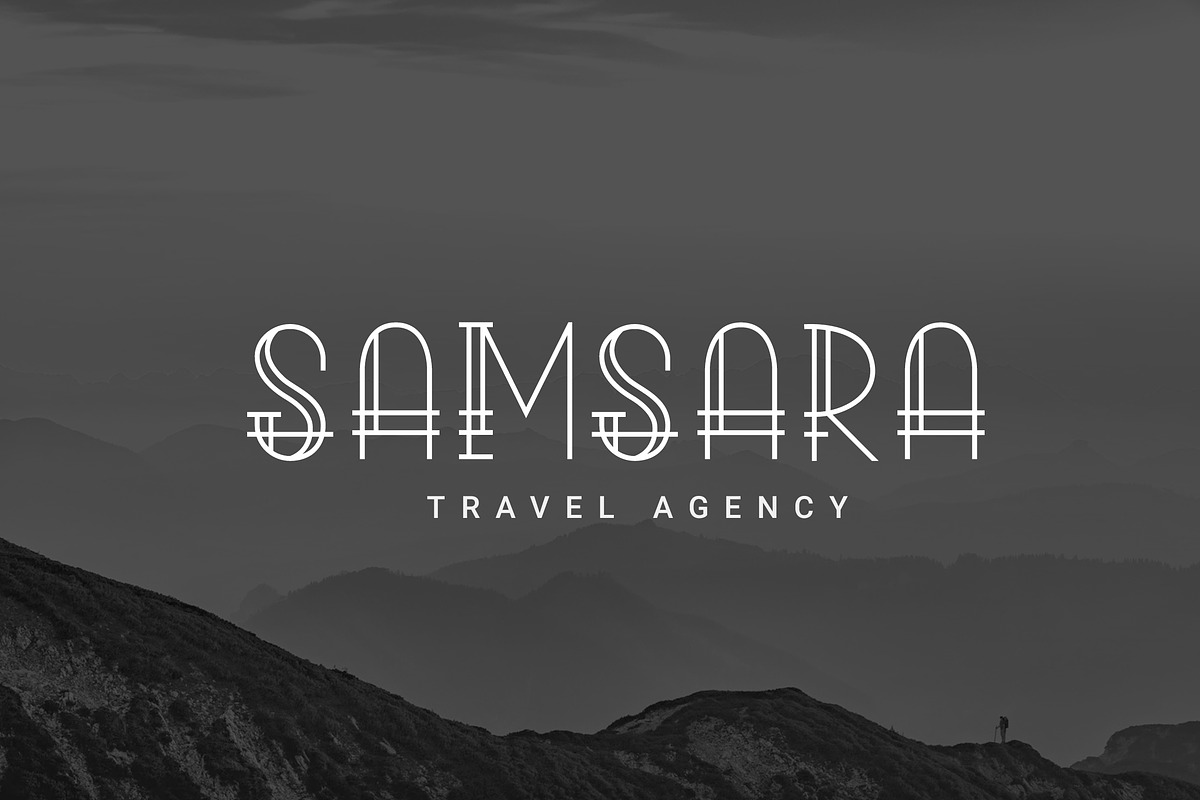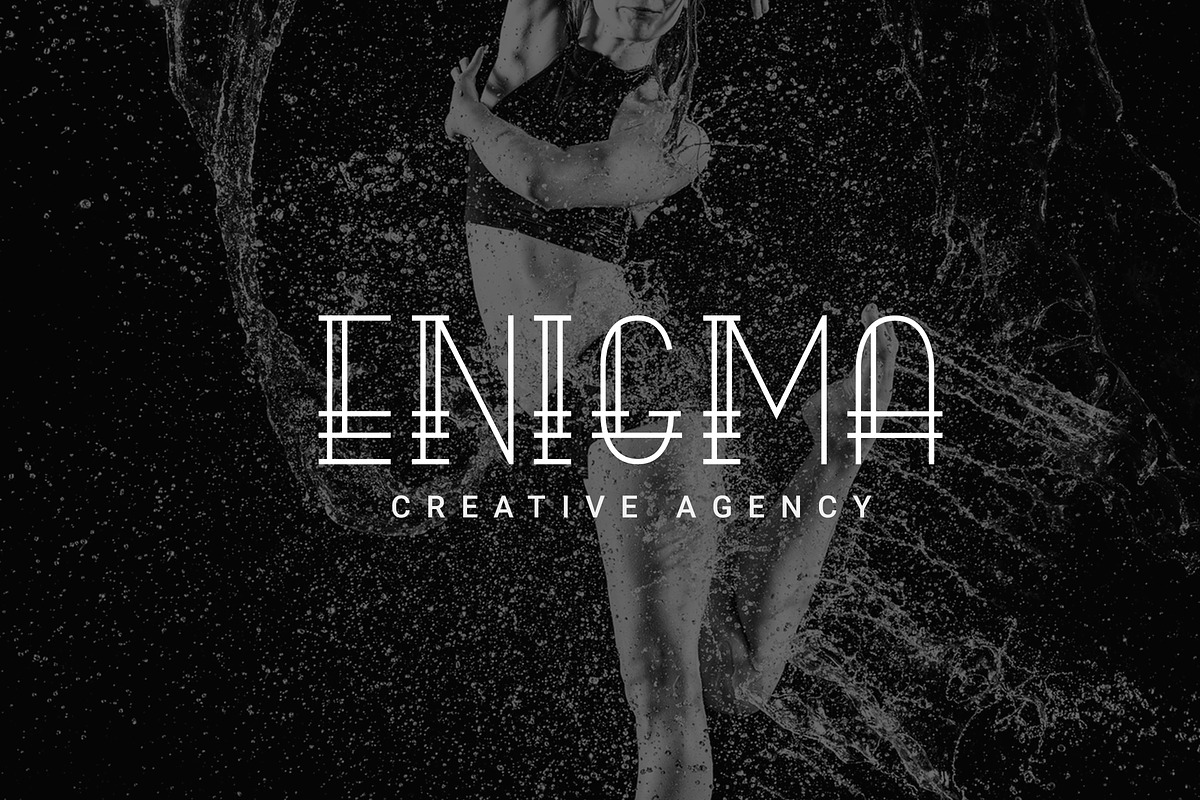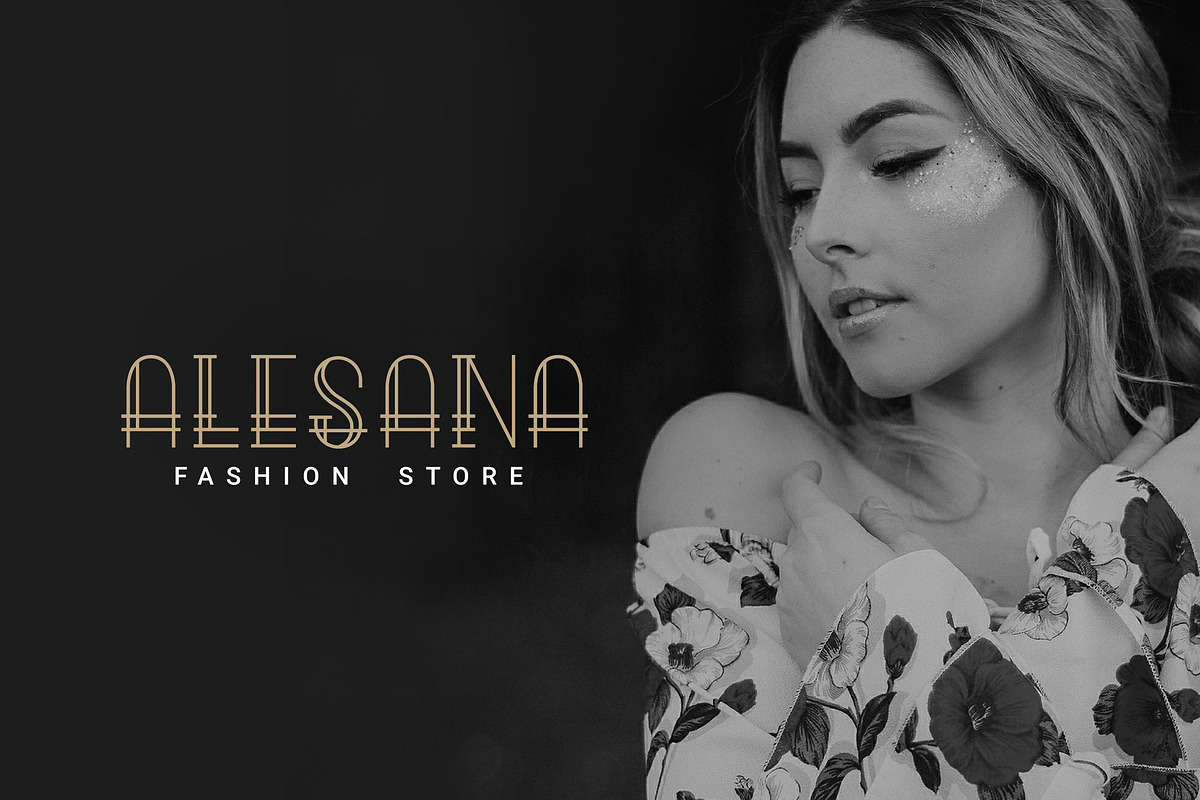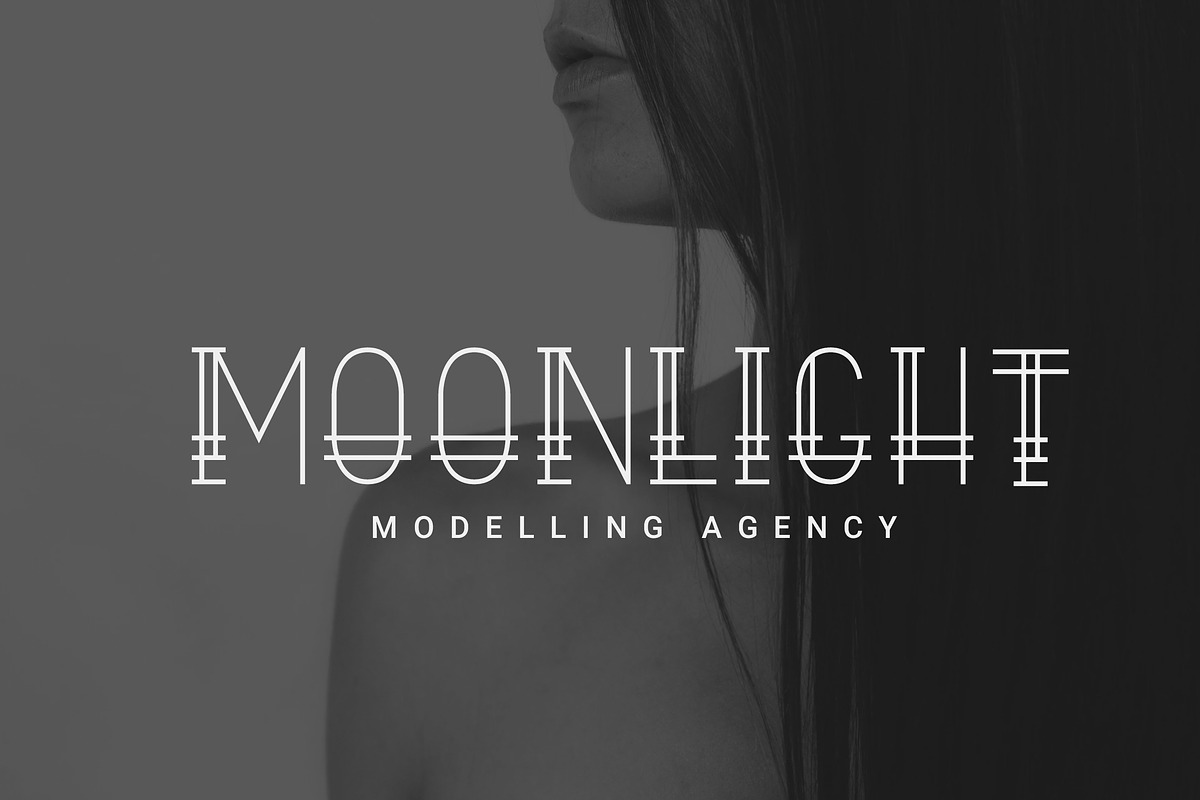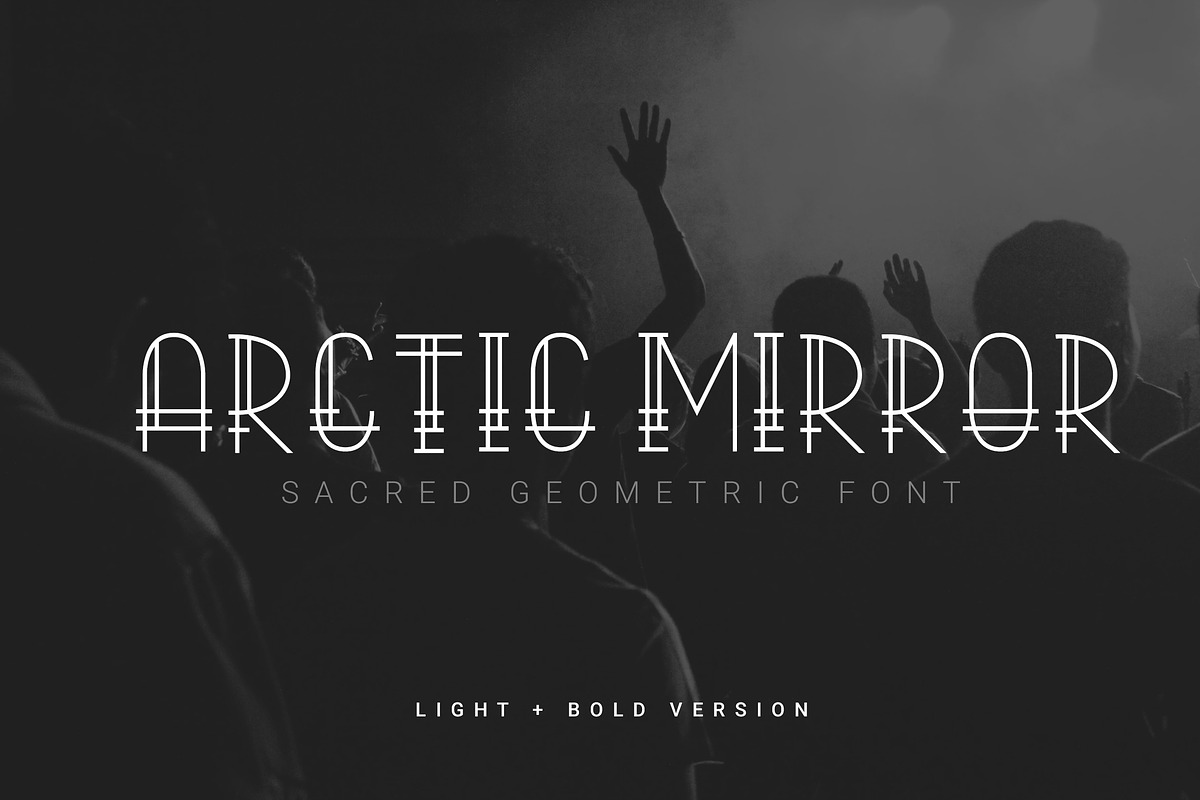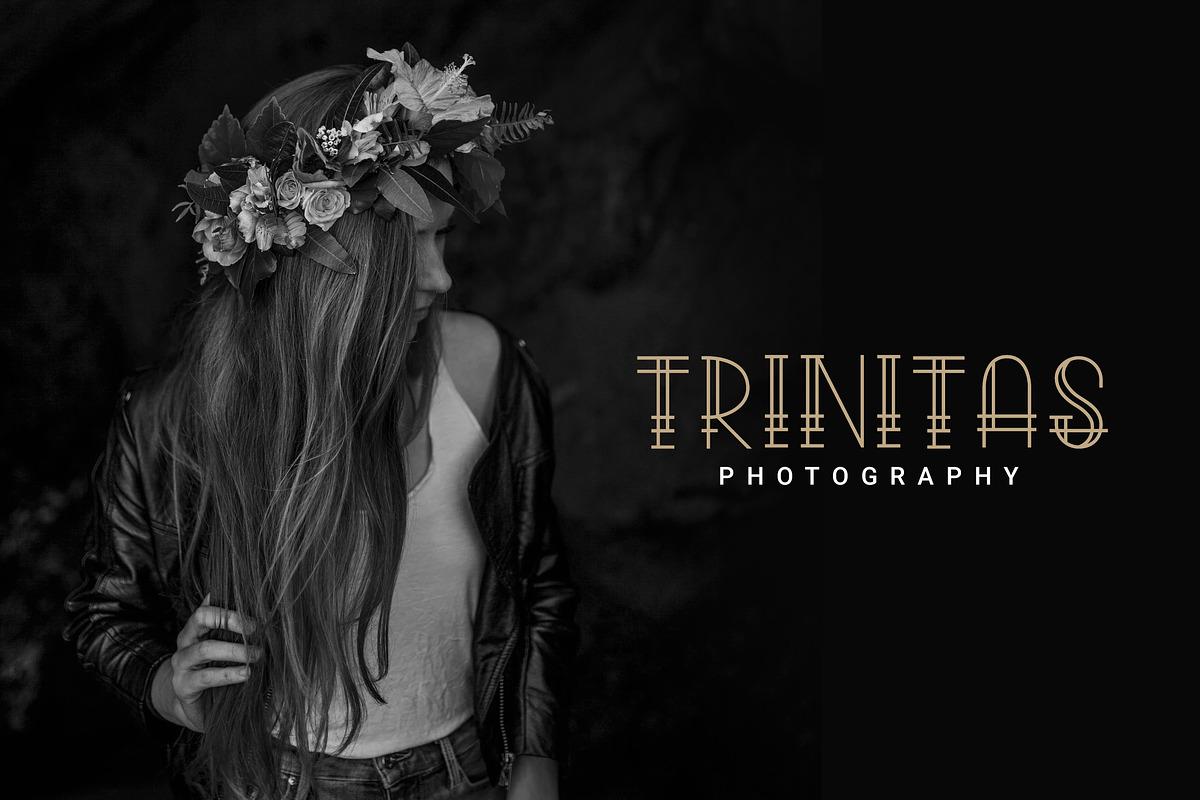
Arctic Mirror - Sacred Font
Create a Extraordinary Typography / lettering results by using Arctic Mirror - Sacred Font. Best match for logos, header, Titles, Prints & other Creative process possibilities.
Why Arctic Mirror - Sacred Font is worth a look
Arctic Mirror - Sacred Font by rubirubiko fits naturally into Branding, posters, packaging, typography.